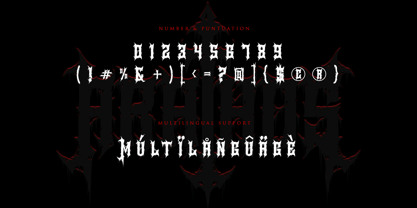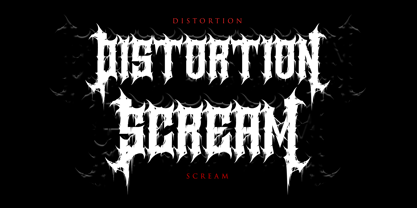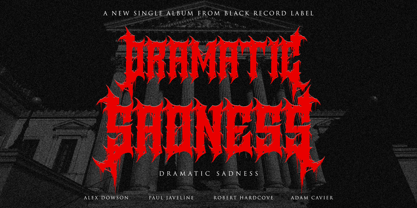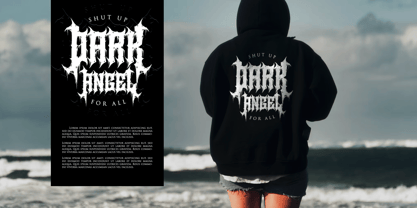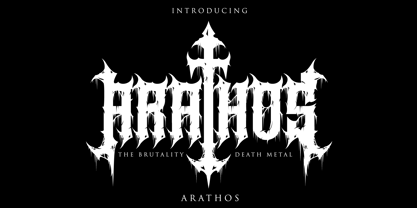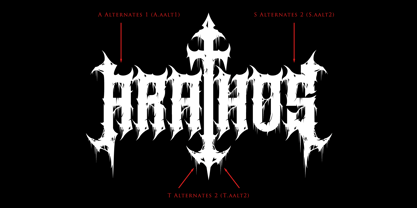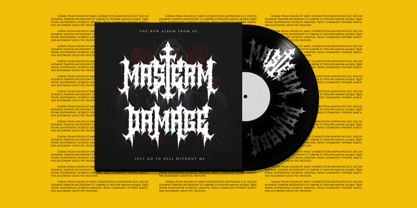
Yarathosy
by Absonstype
The Yarathosy Font Family was designed by Sarwo Edhi Prayitno, Edhi Prayitno and published by Absonstype. Yarathosy contains 1 styles.
Yarathosy is the Black Metal – Death Metal – Trash Metal or any Metal Music display font with all caps style looks and feel nice balanced.
Created your design just with the play alternates font
Honestly it works perfectly for headlines, logos, posters, packaging, T-shirts and much more for branding and anything designs.
Font Features :
• Character set A-Z in All Caps Style
• Alternates letter in Uppercase
• Numerals & Punctuation
• Multilingual Support